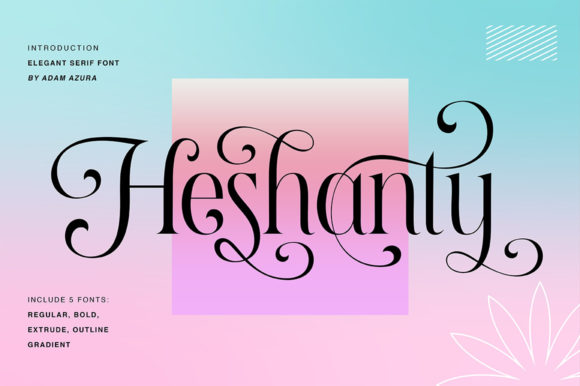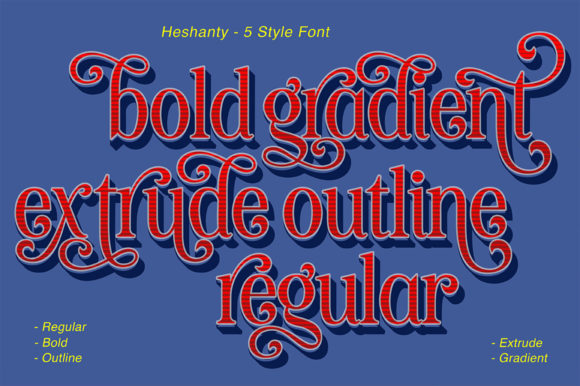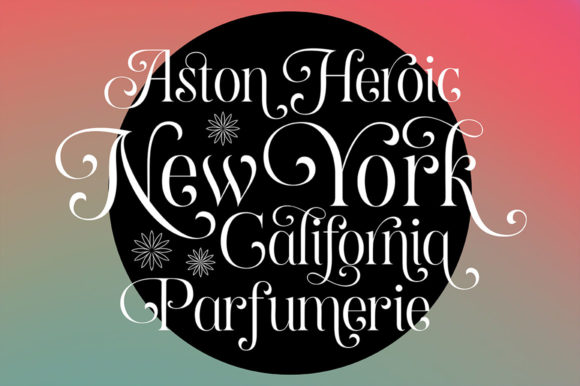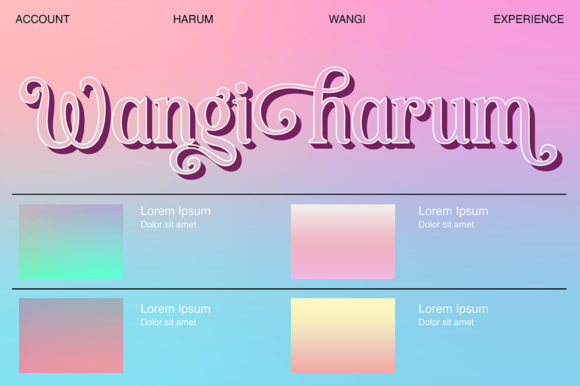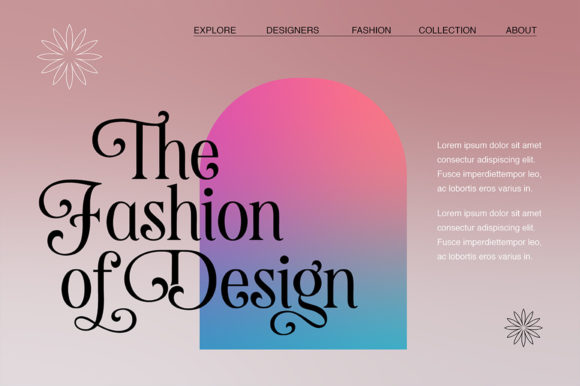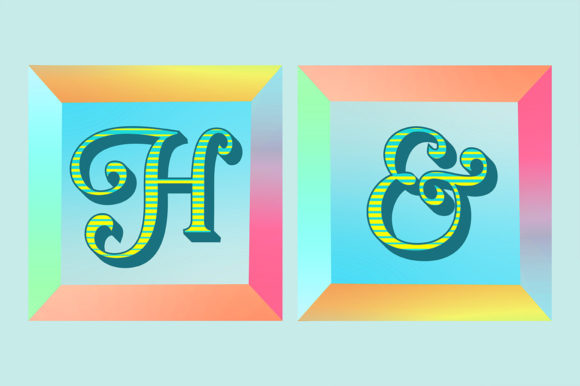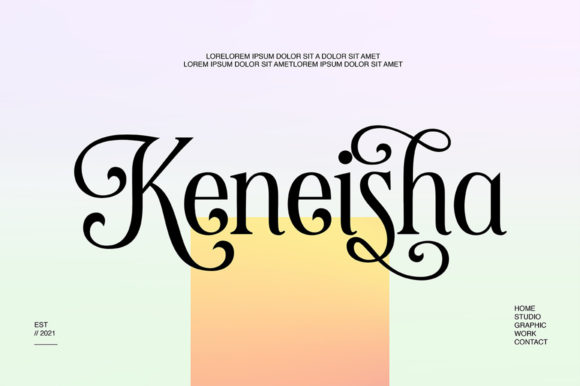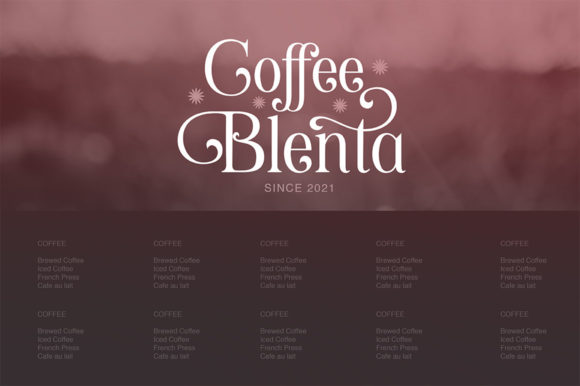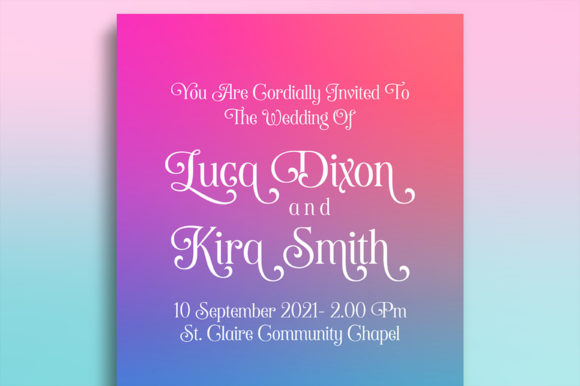
Heshanty Font
Heshanty is a luxurious and elegant serif font. This font is PUA encoded which means you can access all of the glyphs and swashes with ease!
Heshanty i
s neatly crafted and highly detailed.